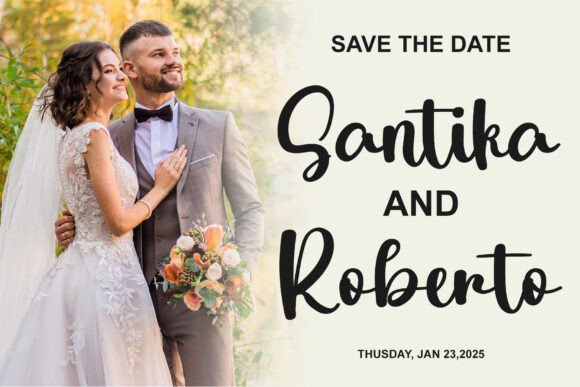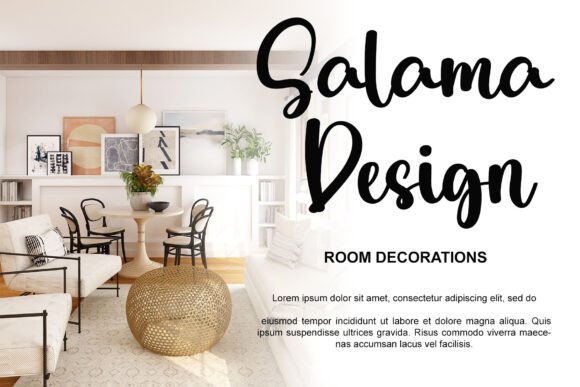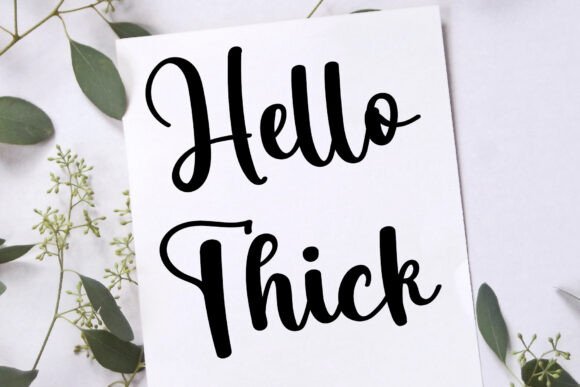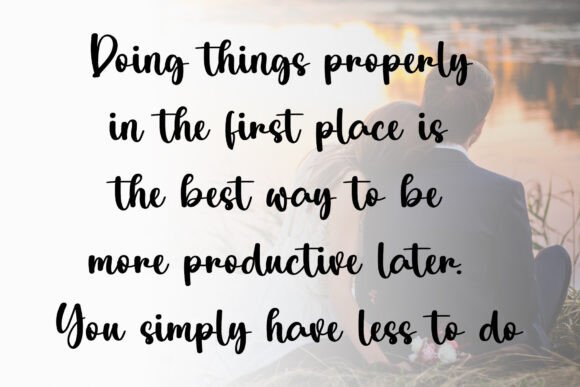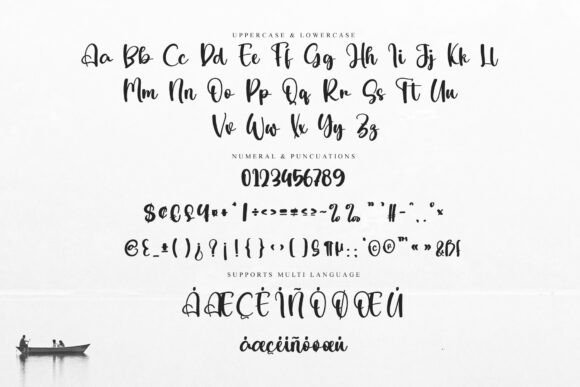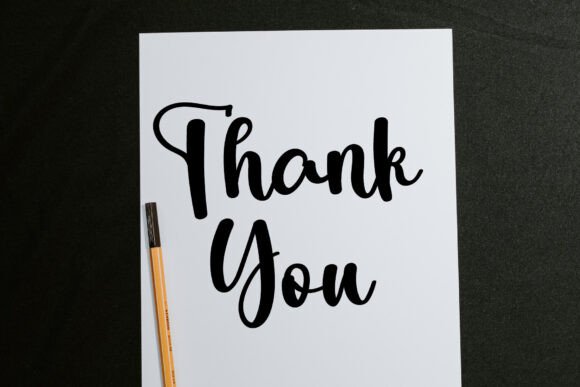
The Magic of Elegant Christmas Font
It’s the most wonderful time of the year – the moment when creativity knows no bounds and the world is filled with the spirit of joy and giving. As designers, we’re always on the lookout for that special something to make our projects truly special, and that’s where the Elegant Christmas Font comes in.
This beautifully crafted font is more than just a tool – it’s an extension of your artistic vision. With its modern and friendly handwritten style, it’s perfect for adding a touch of warmth and elegance to any design, from festive greeting cards to holiday-themed advertising campaigns. Whether you’re a seasoned pro or just starting out, the Elegant Christmas Font is a valuable asset to your font library that’s sure to bring a smile to your face and a touch of magic to your work.
Elegant Christmas Font Key Features
- Font Family: Elegant Christmas Font is a unique, hand-drawn font designed specifically for the holiday season.
- Character Count: The font contains over 300 characters, including uppercase and lowercase letters, numbers, and special characters.
- Resolution: Designed at 300 DPI for high-resolution printing and digital applications.
- Unique Characteristics: Features intricate, hand-drawn details and ornaments, making it perfect for adding a touch of elegance to Christmas designs.
Elegant Christmas Font Review
I recently had the chance to work with the Elegant Christmas Font, and overall, I’m quite impressed. ✨ The font’s elegant and sophisticated design makes it perfect for creating a luxurious and festive atmosphere for any Christmas project. The font’s curves and lines are beautifully crafted, and the attention to detail is evident in every letterform.
The font’s versatility is also a major plus. It can be used for a variety of applications, from invitations and greeting cards to packaging and branding materials. I particularly like how the font looks in larger sizes, where its elegance really shines.
- Beautifully crafted letterforms
- Elegant and sophisticated design
- Highly versatile
- Luxurious and festive atmosphere
- May be too ornate for some designs
- Lack of bold weights may limit its use in headlines
Overall, I think the Elegant Christmas Font is a great choice for anyone looking to add a touch of elegance and sophistication to their Christmas designs. While it may have some limitations, its beauty and versatility make it a worthwhile investment for any designer.
Elegant Christmas Font: A Practical Application Guide
Use the Elegant Christmas Font for creating festive holiday invitations, gift tags, and social media posts.
Combine the Elegant Christmas Font with other festive graphics and elements to create a cohesive holiday design.
Alternatives to Elegant Christmas Font
Playfair Display is a luxurious and elegant font that is perfect for high-end branding and design projects. It features intricate details and flourishes that evoke a sense of sophistication and refinement. Use Playfair Display for projects that require a touch of luxury and elegance, such as high-end fashion, jewelry, or luxury goods branding.
Comparison to Elegant Christmas Font: While both fonts are elegant and sophisticated, Playfair Display has a more luxurious and refined feel, whereas Elegant Christmas Font is more festive and holiday-themed. Playfair Display is a better choice for year-round branding and design projects, while Elegant Christmas Font is more suitable for holiday-themed projects.
Great Vibes is a modern and elegant font that features a mix of classic and contemporary elements. It is perfect for projects that require a touch of sophistication and elegance, such as branding, packaging, and editorial design. Use Great Vibes for projects that require a clean and modern aesthetic.
Comparison to Elegant Christmas Font: While both fonts are elegant and sophisticated, Great Vibes has a more modern and contemporary feel, whereas Elegant Christmas Font is more traditional and holiday-themed. Great Vibes is a better choice for projects that require a clean and modern aesthetic, while Elegant Christmas Font is more suitable for holiday-themed projects.